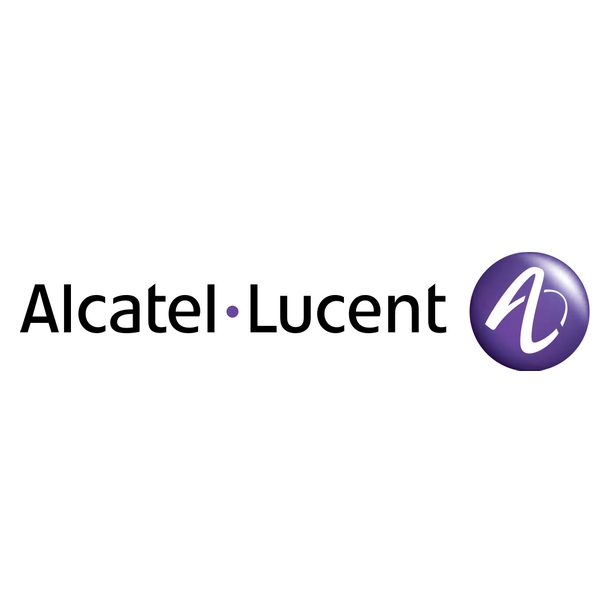
Alcatel Lucent Font
ElectronicsAlcatel-Lucent was a French global telecommunications equipment company, which was acquired by Nokia in 2016. The company was known for its innovation in IP technologies, broadband access, and cloud technologies.
The company's logo is likely a custom design based on Frutiger 57 Condensed, created by Adrian Frutiger in 1968. You can find more information on the typeface here.